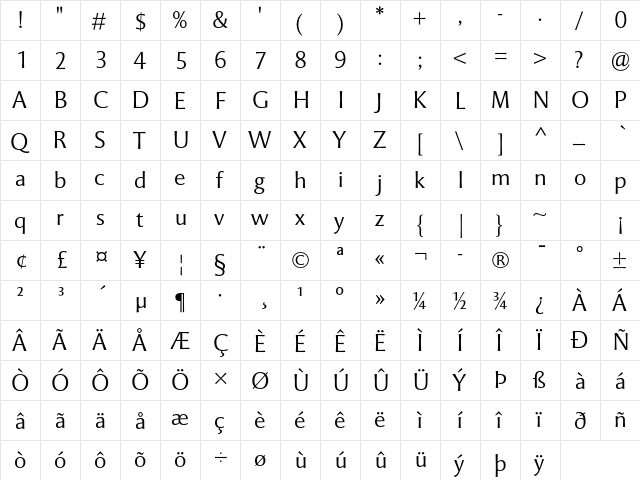
Mentor Sans Std Light
Light ·  Michael Harvey and Andy Benedek ·
Design Context for Mentor Sans Std Typeface
Mentor Sans Std offers clean, dependable letterforms without strong stylistic allegiance, making it a practical choice for designers who need flexibility. The delicate stroke weight brings airiness and refinement to layouts.